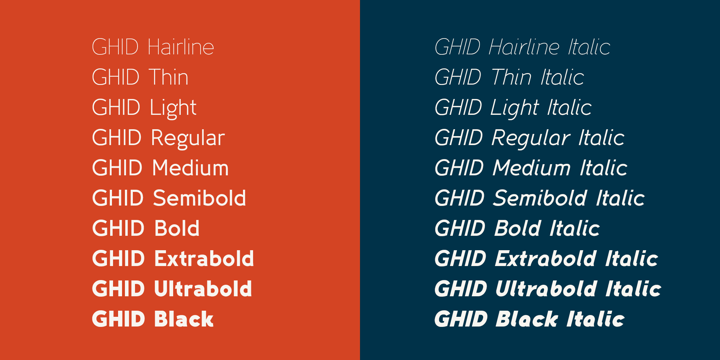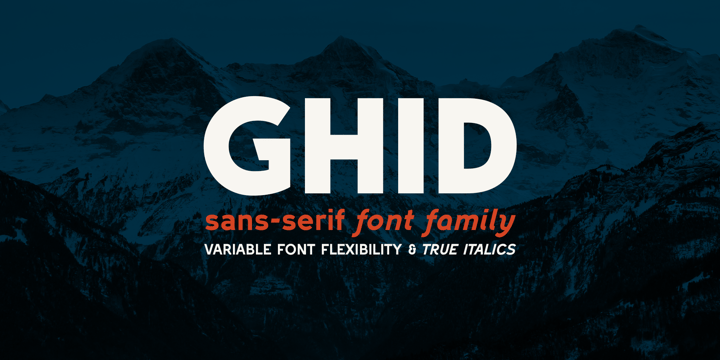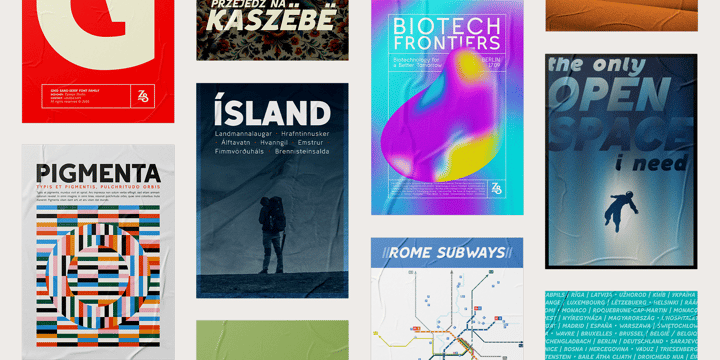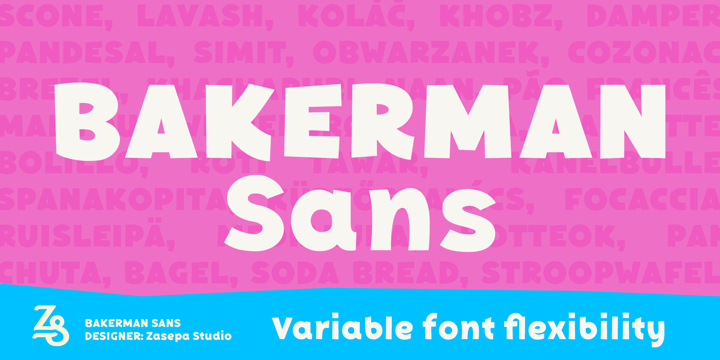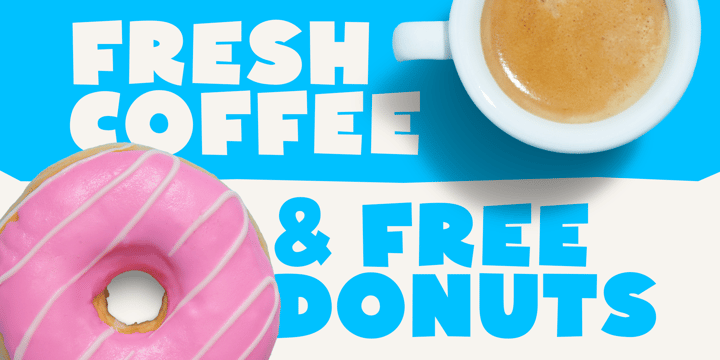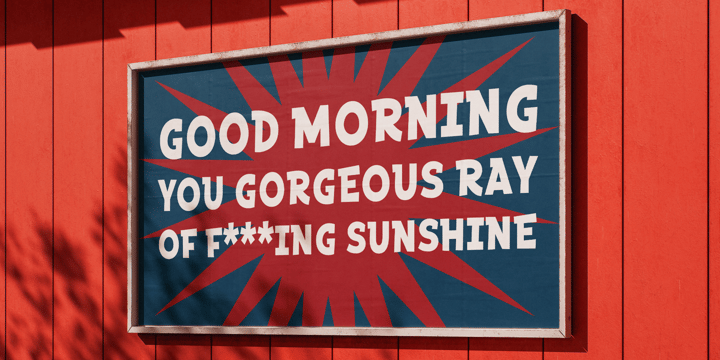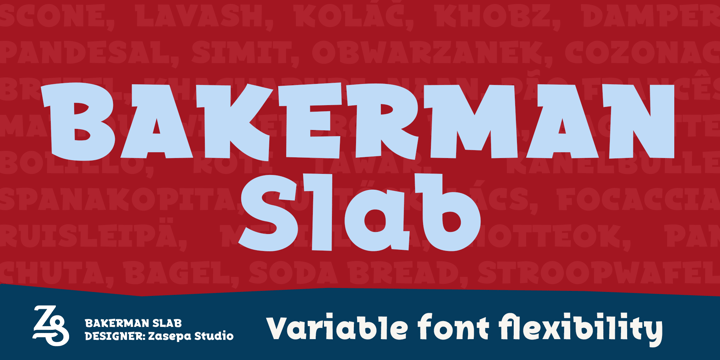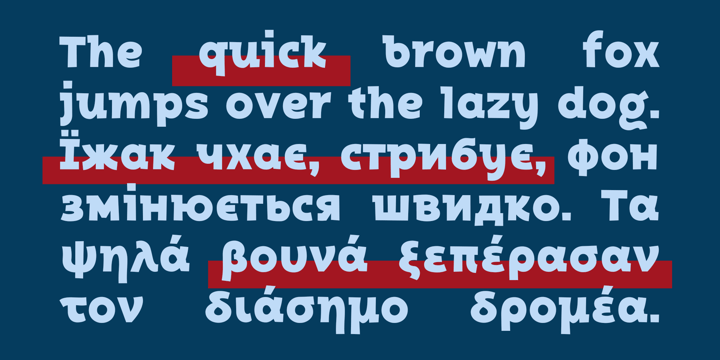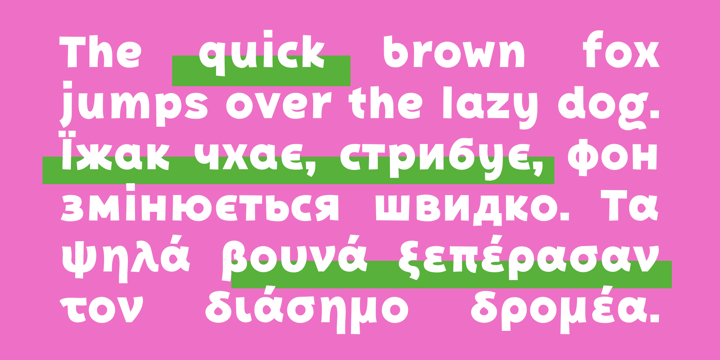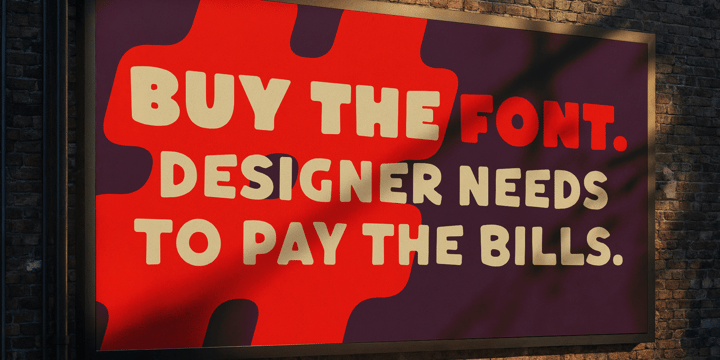
Hubert Zasepa
Hubert Zasępa is a graphic and type designer with over a decade of experience in the field. Holding a Master of Fine Arts degree, he first delved into type design during his studies at Jan Długosz University, where he created a custom typeface as his thesis project.
After graduating, he continued his academic journey, teaching typography and type design at the university. His approach to typefaces is deeply personal—he views each font as a unique entity with its own character and distinctive traits.
Inspired by his travels and a deep appreciation for diverse cultures, Hubert translates these influences into type designs that seamlessly blend tradition with modernity. His work spans a wide range of styles, reflecting his curiosity, craftsmanship, and passion for typography.